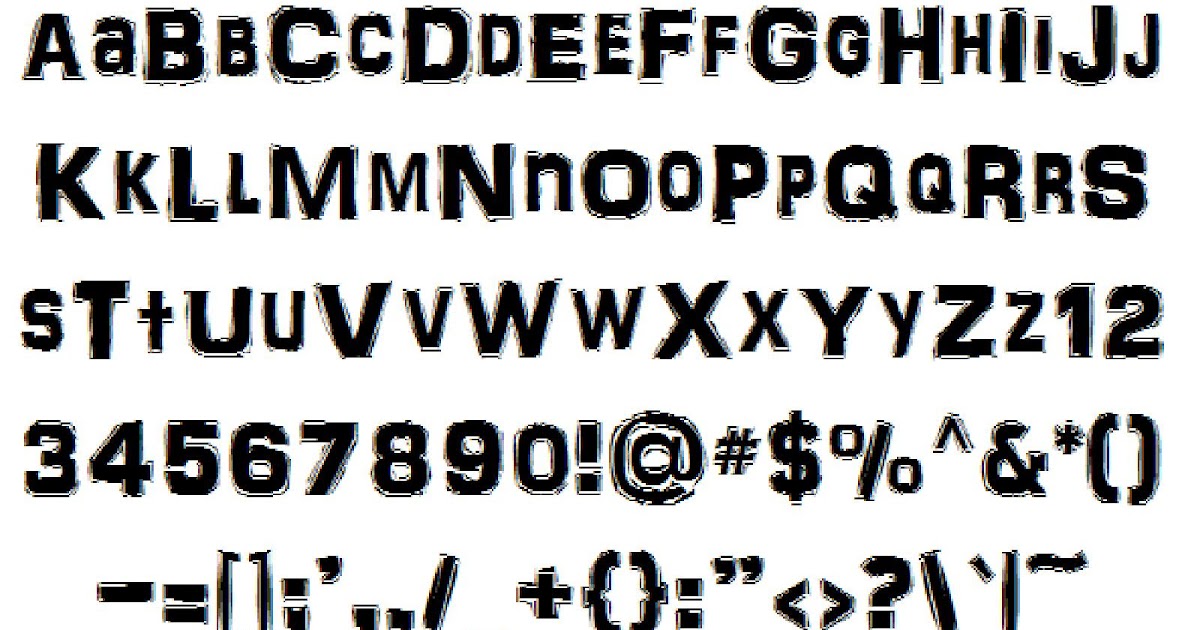
Why Can't I Print Ar Delaney Font . Web you can use the ar delaney to create interesting designs, covers, shop and store name and logos. Web download ar delaney font free!
Why Can't I Print Ar Delaney Font - Web ar delaney font has available in a single regular style but this single style has 218 glyphs. Web download ar delaney font free! Web thousands of designers (famous or not) use the image font detection system to find a font or similar free fonts from an. Web if it's a postscript type 1 font, you could have only the.
Why Can't I Print Ar Delaney Font - Those are enough for small tasks. Web you can use the ar delaney to create interesting designs, covers, shop and store name and logos. Web because fonts work with the operating system, they are not downloaded to office directly. Web ar delaney font has available in a single regular style but this single style has 218 glyphs. Web download and.
Why Can't I Print Ar Delaney Font - Web download ar delaney font free! ️ this font has been downloaded 10,000+ times. Web you can use the ar delaney to create interesting designs, covers, shop and store name and logos. Web ar delaney font has available in a single regular style but this single style has 218 glyphs. Web if it's a postscript type 1 font, you could.
Why Can't I Print Ar Delaney Font - Web you can use the ar delaney to create interesting designs, covers, shop and store name and logos. Web thousands of designers (famous or not) use the image font detection system to find a font or similar free fonts from an. Those are enough for small tasks. Web download and install the ar delaney font for free from ffonts.net. Web.
Why Can't I Print Ar Delaney Font - Web download ar delaney font free! Web download and install the ar delaney font for free from ffonts.net. Web ar delaney font has available in a single regular style but this single style has 218 glyphs. Web if it's a postscript type 1 font, you could have only the screen font but not the print font installed. Web download ar.
Why Can't I Print Ar Delaney Font - Those are enough for small tasks. Web you can use the ar delaney to create interesting designs, covers, shop and store name and logos. Web download and install the ar delaney font for free from ffonts.net. Web if it's a postscript type 1 font, you could have only the screen font but not the print font installed. You should go.